Berzulis Pizius
Berzulis Pizius is a display typeface inspired by Lithuanian mythology. Pizius, a god, protects love, marriage, and relationships.
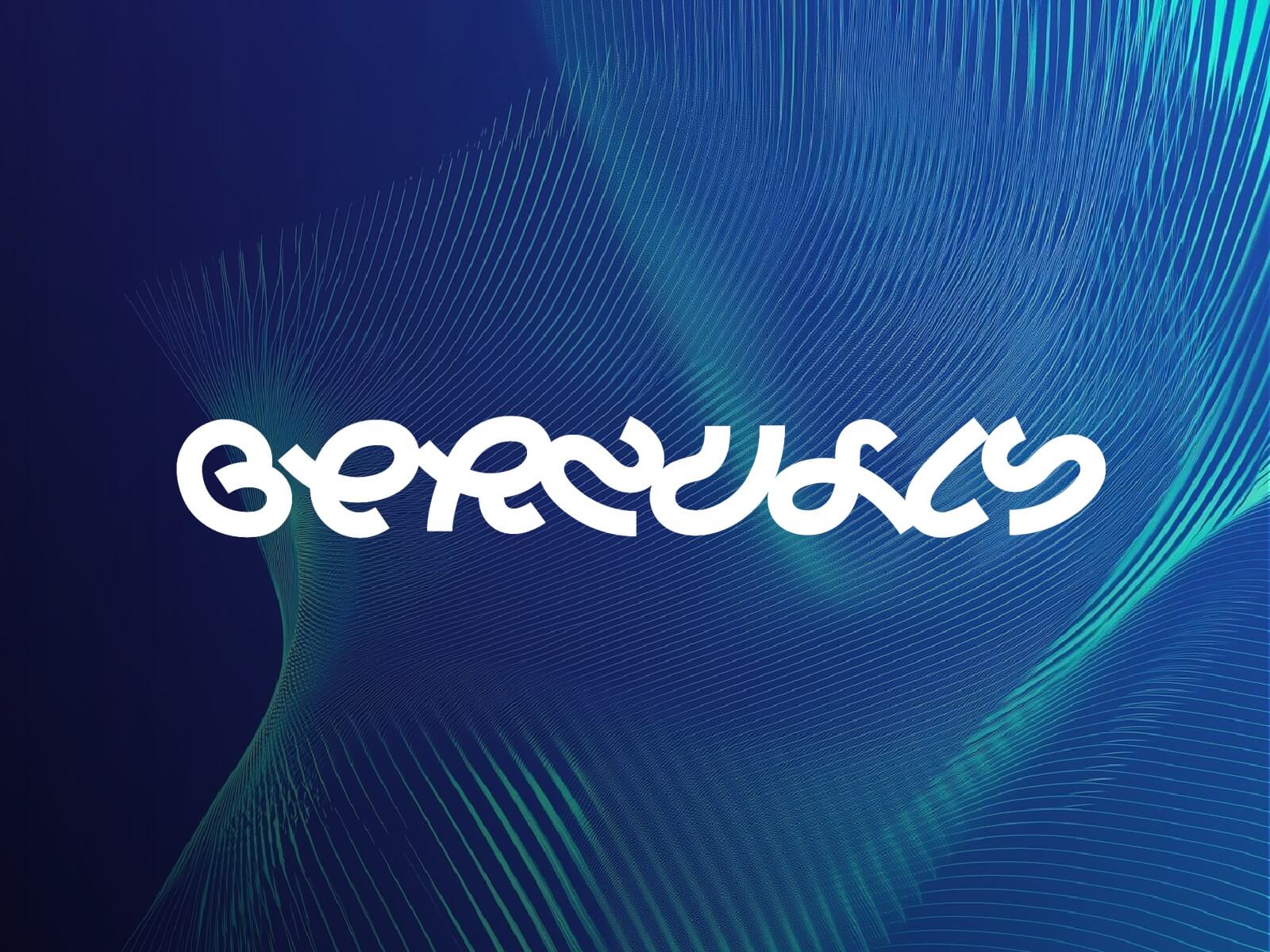
Chaumont Script
Chaumont script font is a brush typeface inspired by the hand-lettered sign painting artistry of Chantal Jacquet.
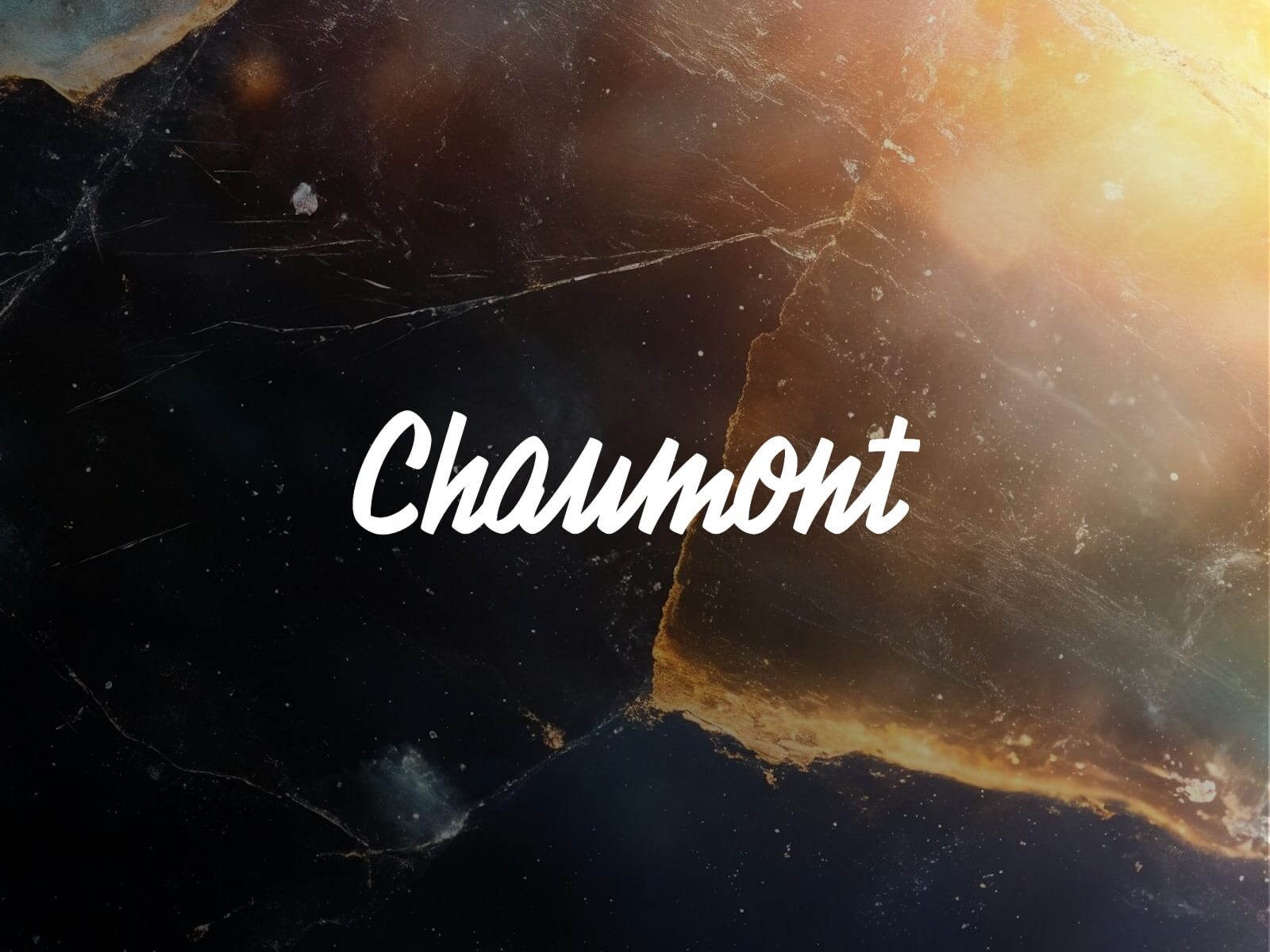
In the hero section of this dark-themed personal portfolio website for Framer, we used the Chaumont Script font for the subheadline. Click here to check the live preview of this Framer component.
In this Fitness Studio Page Template for Framer, we've used the Chaumont Script font for subheadlines. Preview the template here and easily copy it to your website with Pro access.
Havana
The "Havana" font draws inspiration from Warsaw's pre-1989 neon signs. It’s detailed, coherent, and sophisticated, with some letters like "K" and "m" from "Kosmetyki" and "t" from "Mister" signs. Named after Warsaw's former "Havana" cafe, it’s designed by Joanna Angulska.
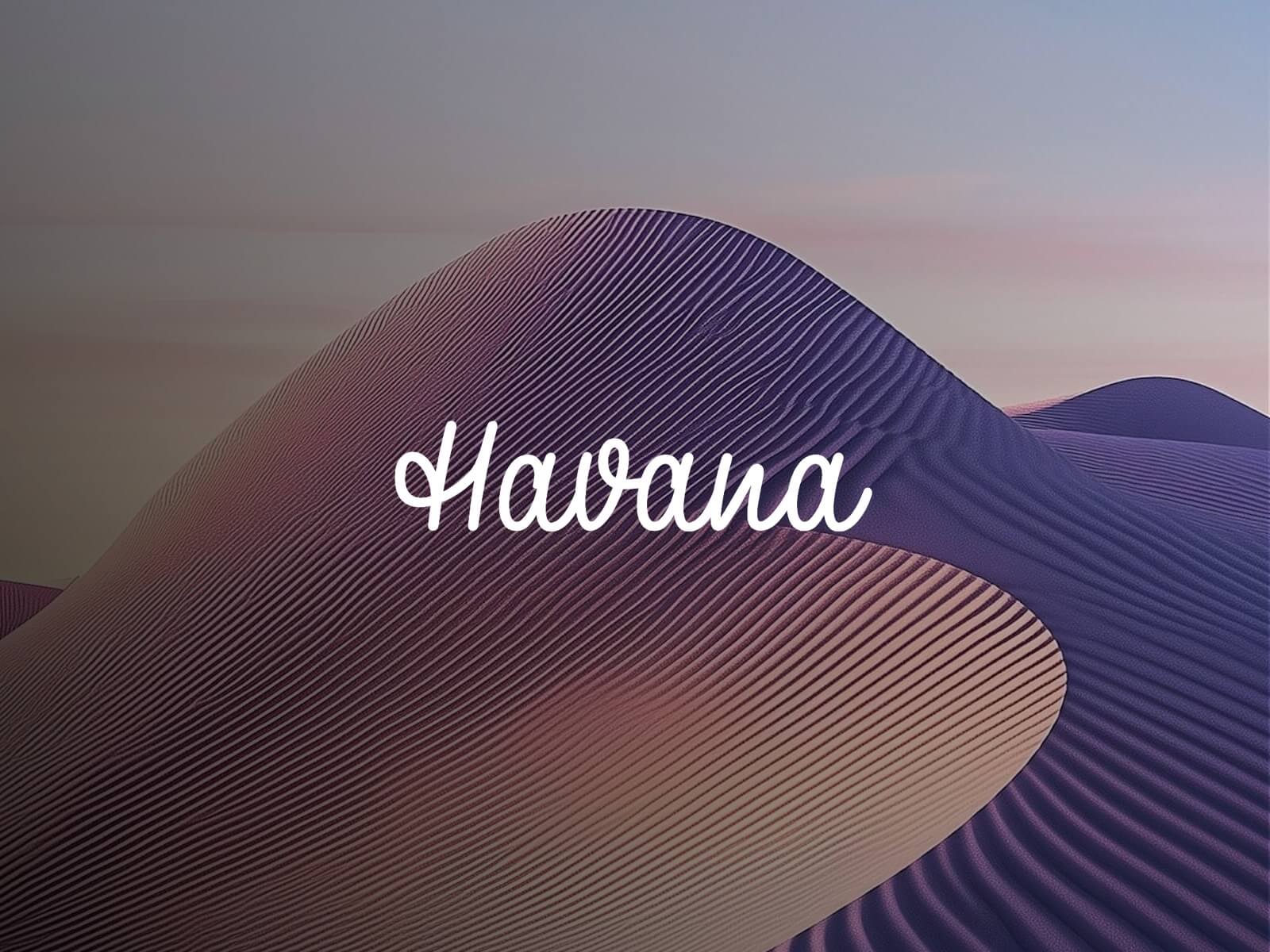
Magiel
Magiel is a geometric display font designed by Mateusz Machalski.
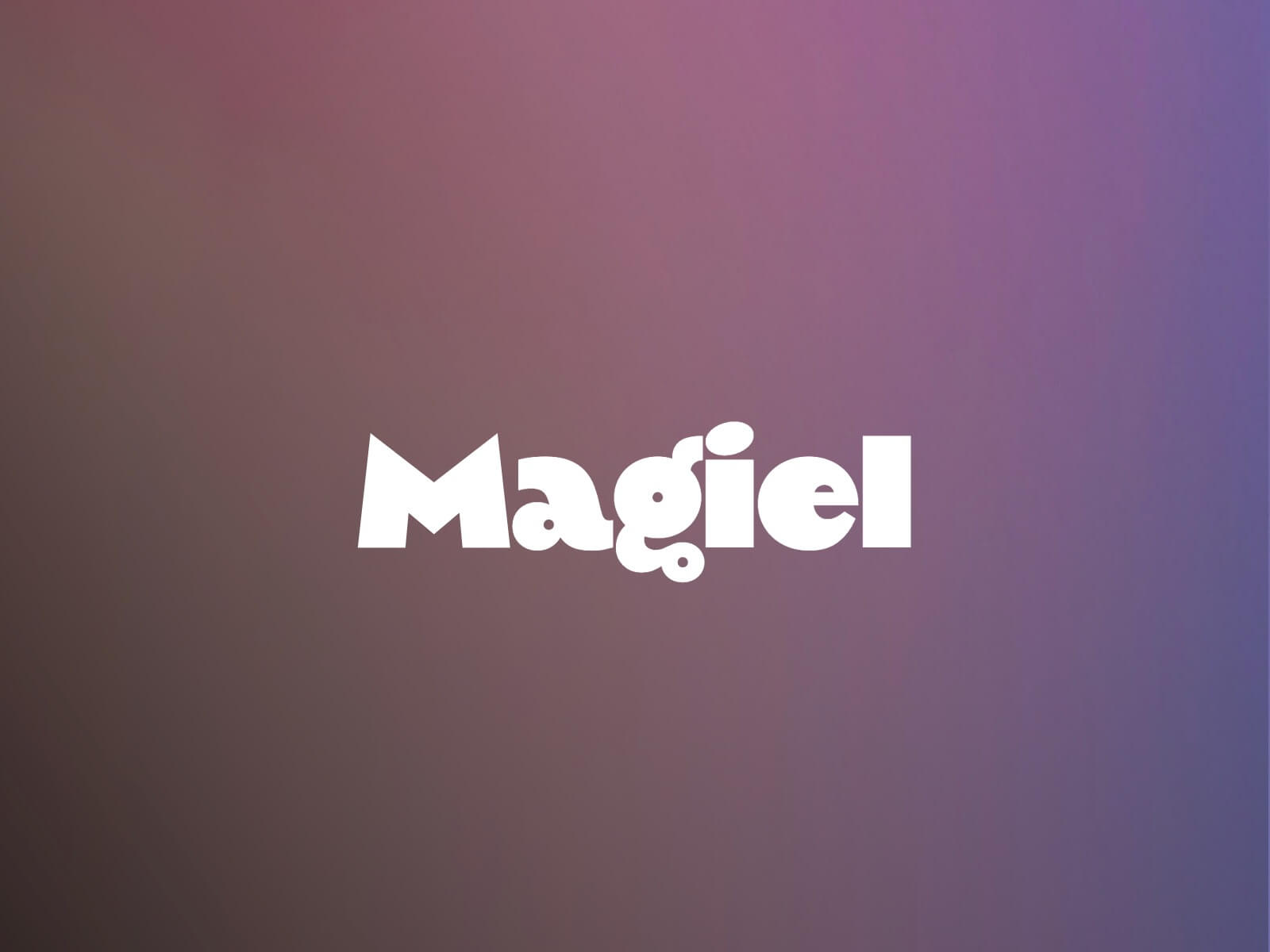
In this hero section component for Framer, we've used the Magiel font for the headline and Havana for the subheadline. View the live preview of this Framer component here.
LCT Iptex
LCT Iptex is an advanced monospaced typeface, drawing inspiration from Wim Corwel's modular design approach.
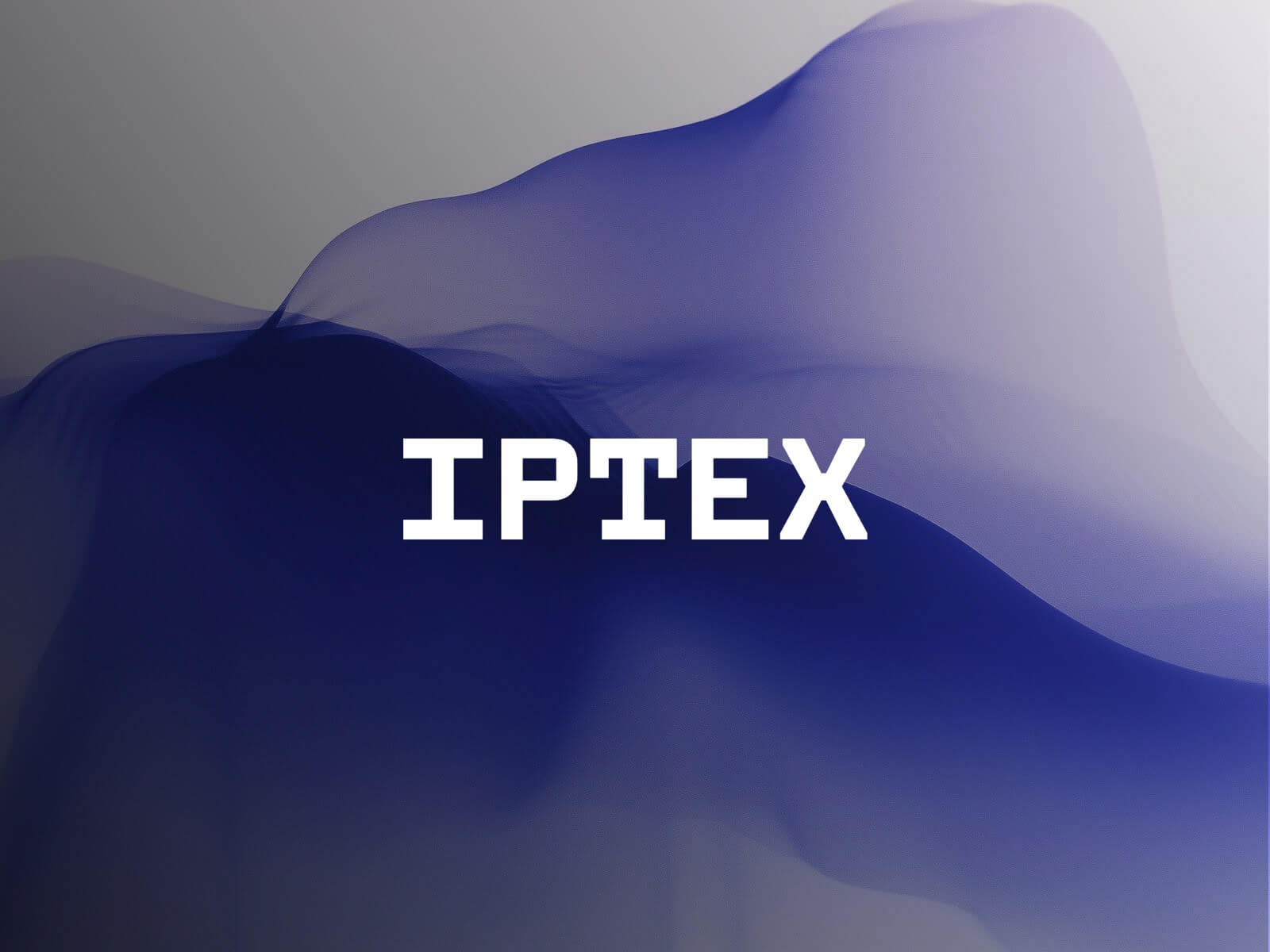
Huab
Huab, designed by Jeff Kim, is a minimalist font using circles and squares, meant to be a geometric design element without traditional font functionality.
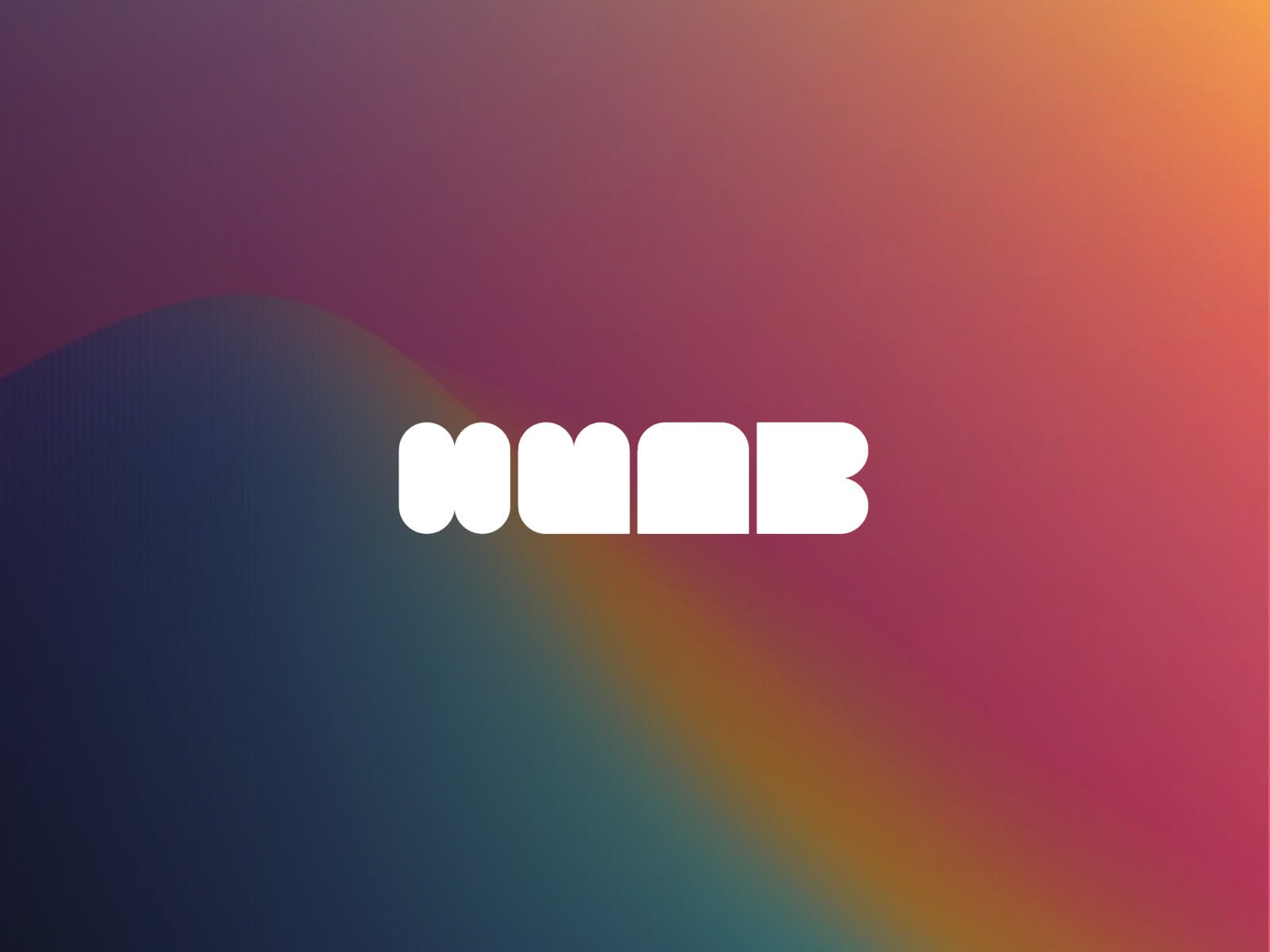
Instrument Serif
Instrument Serif blends timeless elegance and modern versatility, ideal for websites. Its refined serif details and great readability bring sophistication to headings and body text, enhancing user experience across devices.
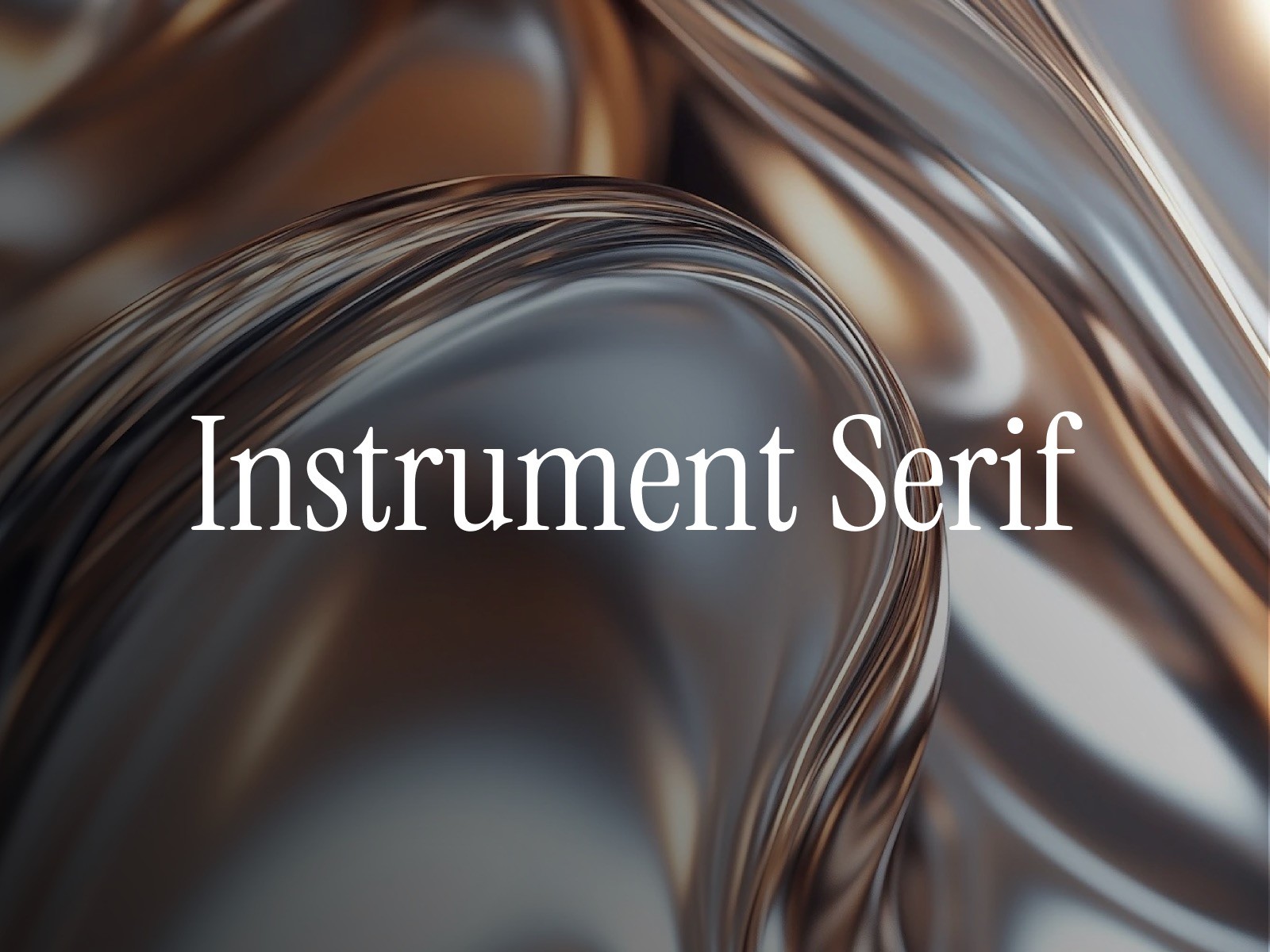
Here's a great example of combining the elegant Instrument Serif font with the modern, clean Poppins font in a hero section headline. You can find this prebuilt hero section component for Framer in the Component Library.
The Instrument Serif font pairs well with the Bebas font in the headline of the hero section. We've created a ready-made, responsive Framer page template using this font combination. Check it out here.
Stardom
The Stardom font adds bold style to Framer sites, perfect for striking designs. Its modern look ensures your content is clear and engaging on all devices.